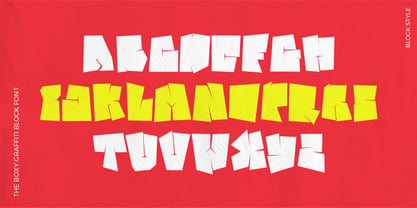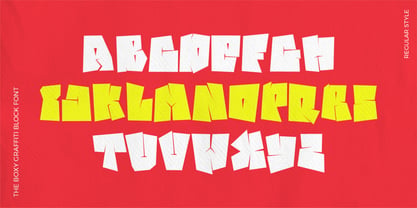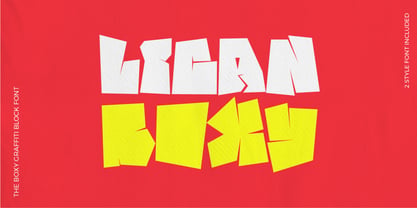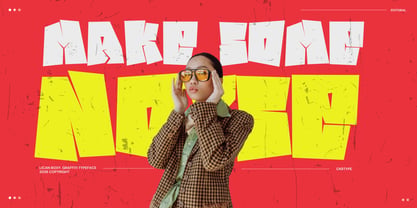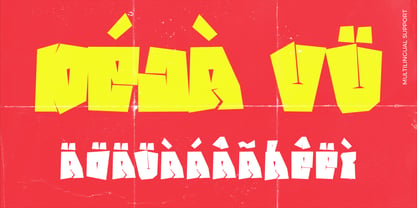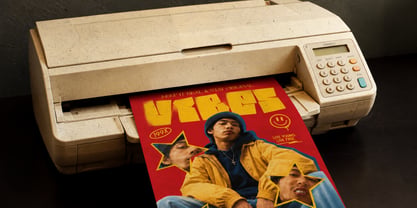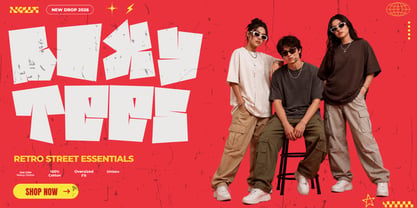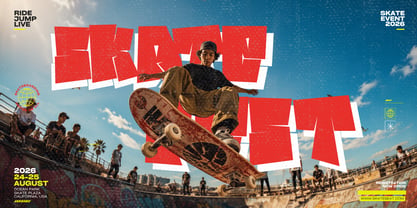
Lican Boxy
by Sipanji21
Lican Boxy is a bold boxy graffiti display font inspired by classic block lettering, urban wall pieces, skate culture, and modern streetwear aesthetics. Built with chunky geometric shapes and an intentionally imperfect construction, this font delivers a raw handcrafted graffiti appearance while maintaining excellent readability. Every character is designed to capture the energy of authentic street lettering, making it an outstanding choice for designers who need powerful headlines, bold branding, and attention-grabbing typography.
Unlike traditional graffiti fonts that rely heavily on wildstyle complexity, Lican Boxy embraces a cleaner block construction. The result is a highly versatile display font that combines urban attitude with modern usability. Thick letterforms, irregular edges, and balanced proportions create a strong visual impact without sacrificing clarity, making it suitable for both digital and print projects.
Lican Boxy comes with two distinctive styles that allow designers to create multiple visual directions while maintaining the same urban personality. Whether you're producing minimalist branding or expressive graffiti-inspired artwork, the included styles provide flexibility for a wide variety of creative applications.
Designed for large display sizes, Lican Boxy performs exceptionally well in:
• Streetwear branding
• Graffiti merchandise
• Skateboard graphics
• Hip hop album covers
• Music festival posters
• Clothing labels
• Apparel logos
• Sports branding
• Gaming titles
• YouTube thumbnails
• Social media campaigns
• Event posters
• Packaging
• Promotional banners
• Urban advertising
• Sticker designs
• Graffiti wall artwork
• Digital marketing
• Product headlines
• Logo concepts
The oversized geometric construction ensures every letter remains highly visible even from a distance. This makes Lican Boxy ideal for signage, advertising, and large-format print projects where readability and impact are equally important.
The font includes:
• Uppercase Characters
• Numbers
• Punctuation
• Multilingual Support
The multilingual character set allows creators around the world to build professional typography for international audiences while maintaining a consistent visual style.
Lican Boxy is particularly suitable for creative industries including fashion, entertainment, gaming, sports, youth culture, and urban branding. The font effortlessly communicates confidence, movement, rebellion, creativity, and contemporary street culture.
Graphic designers can use it for:
• Logo design
• Packaging
• Labels
• Product branding
• Apparel graphics
• Posters
• Flyers
• Event promotions
• Social media content
• Motion graphics
• Streaming overlays
• YouTube banners
• Twitch branding
• Merchandise
• Restaurant branding
• Coffee shop identity
• Food truck graphics
• Beverage packaging
• Album artwork
• Podcast covers
Its bold silhouette also works exceptionally well with layered effects, drop shadows, halftones, distressed textures, outlines, neon treatments, and vibrant color combinations.
Whether combined with photography or illustration, Lican Boxy naturally becomes the focal point of any composition. It brings an energetic street-inspired personality that immediately attracts attention.
If you're searching for a graffiti display font that balances authentic urban aesthetics with practical usability, Lican Boxy offers the perfect combination of boldness, readability, versatility, and modern street culture.
Create fearless branding.
Build unforgettable headlines.
Design with authentic urban energy.